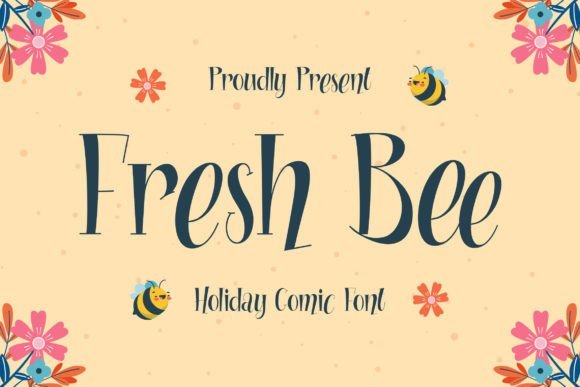
Get Ready to Buzz with Creativity!
Remember that moment when you stumbled upon the perfect font, and your design project suddenly came to life? It’s like finding a hidden gem in a treasure trove of possibilities. For me, that moment was when I discovered the Fresh Bee Font – a sweet and adorable comic display font that added a touch of whimsy to my latest design project.
Whether you’re a seasoned designer or just starting out, the Fresh Bee Font is a valuable addition to your toolkit. Its unique charm and playful personality make it the perfect choice for projects that need a little extra oomph. With the Fresh Bee Font, you can create designs that truly stand out from the crowd and leave a lasting impression on your audience.
Fresh Bee Font Key Features
- Font Family: Fresh Bee Font is a unique, hand-drawn sans-serif font with a natural and friendly feel.
- Size: The font includes 6 font weights, ranging from Light to Bold, to cater to different design needs and preferences.
- Resolution: Designed for use at high resolutions, making it ideal for digital applications, including websites, social media, and mobile apps.
- Unique Characteristics: Fresh Bee Font features a distinctive, organic feel, with subtle imperfections and texture, giving it a personal and handcrafted touch.
- Language Support: Supports a wide range of languages, including Latin, Cyrillic, and Greek scripts, making it suitable for international and multilingual projects.
Designer Review: Fresh Bee Font
At first glance, I was drawn to the Fresh Bee Font for its playful and whimsical feel. ✨ The font’s unique, hand-drawn style is perfect for creating a friendly and approachable atmosphere in branding, packaging, or advertising.
Here are some of the things that work well in the Fresh Bee Font:
- ✨ The font’s fluid, organic shapes add a sense of movement and energy.
- ✨ The variety of weights and styles allows for versatility in application.
- ✨ The font is well-suited for digital and print use, making it a great choice for multi-channel branding.
- ⚠️ The font may not be suitable for formal or professional applications, as its playful nature may come across as unprofessional.
- ⚠️ The font’s complexity may make it challenging to use in small text sizes or at low resolutions.
Overall, I think the Fresh Bee Font is a great choice for designers looking to add a touch of personality to their projects. With its unique style and versatility, it’s a great option for creatives who want to stand out from the crowd.
Tips for Getting the Most Out of Fresh Bee Font
Here are some tips to help you get the most out of Fresh Bee Font:
- Use it for titles and headings to add a touch of whimsy to your designs.
- Combine Fresh Bee Font with other fonts to create a unique and eye-catching look.
Here are some common use cases for Fresh Bee Font:
- Children’s book illustrations and design.
- Wedding
Alternatives to Fresh Bee Font
Great Vibes Font is a playful and cursive script font, perfect for creating a fun and carefree atmosphere in designs. It’s ideal for use in headings, titles, and quotes. Great Vibes Font has a more relaxed and casual feel compared to Fresh Bee Font, which is more modern and sleek.
Lato Font is a modern sans-serif font with a clean and minimalist design. It’s suitable for use in body text, headings, and titles, and is ideal for creating a professional and elegant look. Lato Font is more straightforward and simple compared to Fresh Bee Font, which has a unique and quirky feel.
Aleo Font
Aleo Font is a elegant and modern script font, perfect for creating a sophisticated and luxurious atmosphere in designs. It’s ideal for use in headings, titles, and quotes, and is suitable for a wide range of industries, from fashion to finance. Aleo Font has a more refined and polished feel compared to Fresh Bee Font, which is more playful and casual.
Playfair Display Font is an elegant and luxurious serif font, perfect for creating a high-end and sophisticated atmosphere in designs. It’s ideal for use in headings, titles, and quotes, and is suitable for a wide range of industries, from fashion to finance. Playfair Display Font has a more formal and classic feel compared to Fresh Bee Font, which is more modern and edgy.